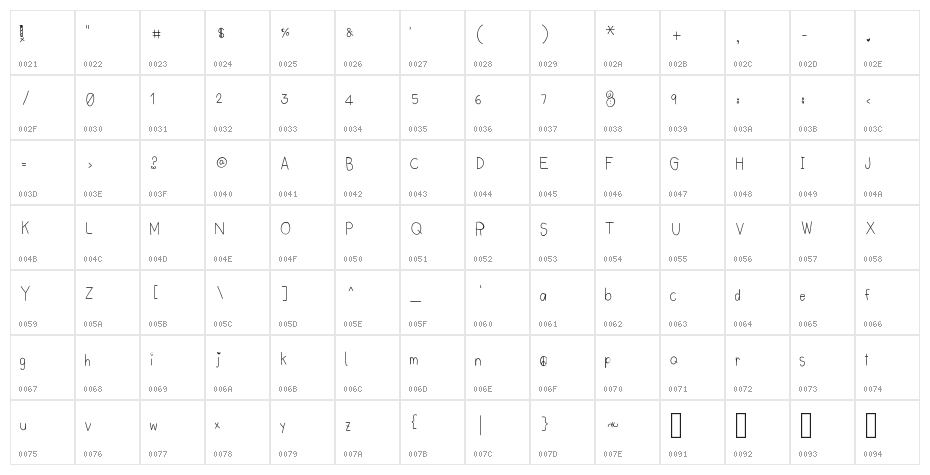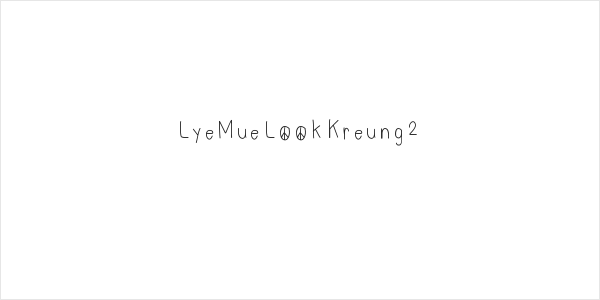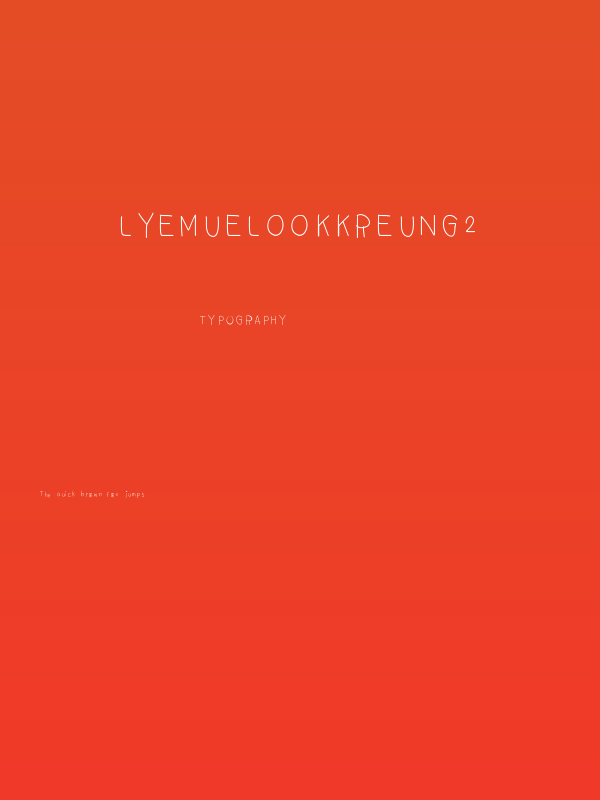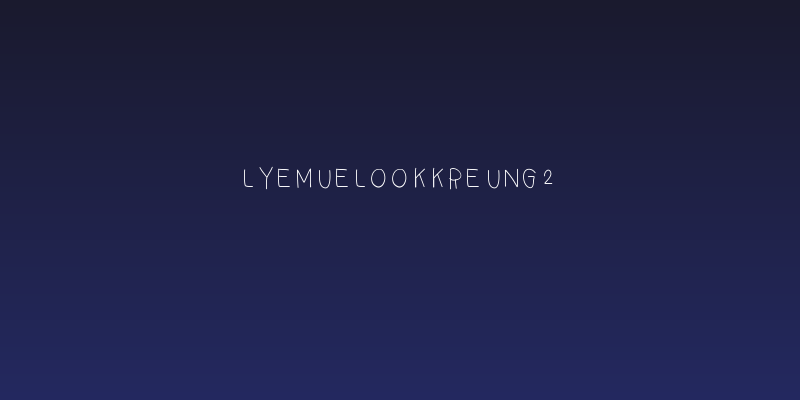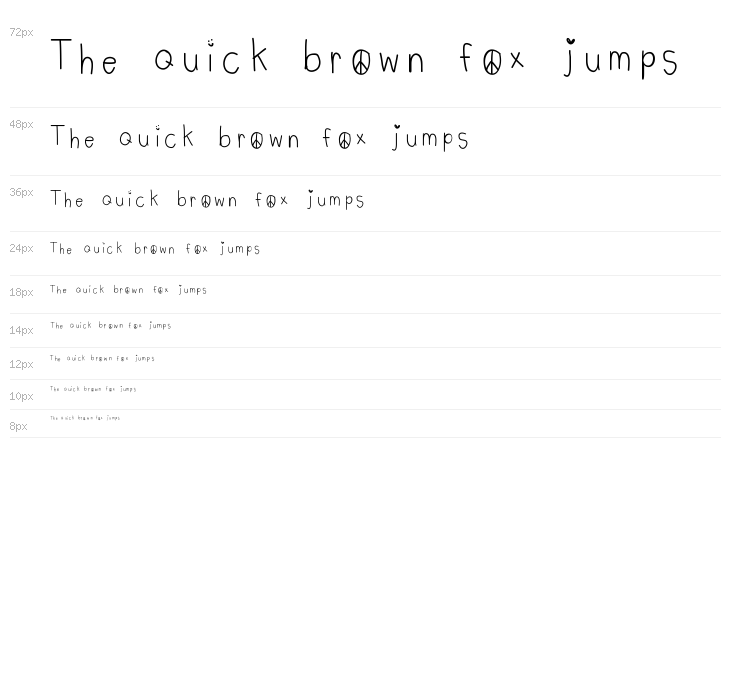
LyeMueLookKreung2 Font
LyeMueLookKreung2 Description
This playful and whimsical font features a handwritten style with a unique and charming character. Each letter is crafted with a casual, freeform appearance, giving it a friendly and approachable feel. The uppercase letters are slightly more structured, while the lowercase letters exhibit a more relaxed and informal style. The numbers and special characters maintain the same playful aesthetic, with some characters incorporating delightful embellishments, such as hearts and dots. This font's overall design is light-hearted and creative, making it perfect for projects that require a touch of personality and fun.